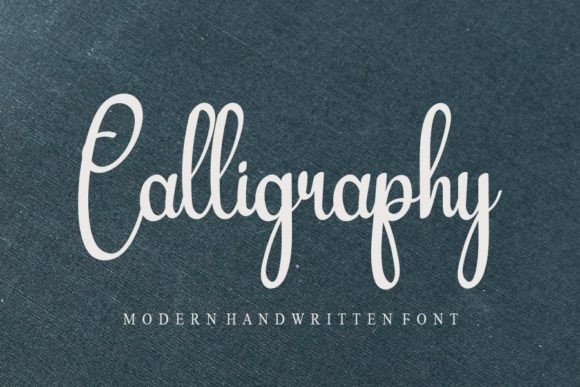
The Beauty of Calligraphy Font: Elevate Your Designs with Elegance
I’ll never forget the time I was working on a wedding invitation project, and my client asked for a font that exuded elegance and sophistication. I scoured the internet, tried countless fonts, but nothing seemed quite right. That was until I stumbled upon Calligraphy Font. It was love at first sight! ✨ With its classy calligraphic influences and contemporary feel, it instantly became my go-to choice. In this article, I’ll share my experience with Calligraphy Font, its features, and how to make the most of it in your designs.
An Honest Review of Calligraphy Font
• ✨ Beautifully crafted letters with a friendly, handwritten feel
• ✅ Maintains classy calligraphic influences while feeling contemporary and fresh
• 💫 Perfect for a wide range of creative projects, from wedding invitations to branding and packaging
• 👍 Highly legible, even at smaller font sizes
While Calligraphy Font is an excellent choice, there are a few things to keep in mind: ⚠️
• 🤔 Some users may find the font a bit too ornate for very casual or playful projects
• ⚠️ Limited availability of certain characters or glyphs, but this can be addressed with OpenType features
The Story Behind Calligraphy Font
Calligraphy Font was designed with the goal of creating a beautiful, yet approachable handwritten font. The designer, inspired by traditional calligraphy, aimed to craft a font that would feel both elegant and contemporary. With its unique blend of classic and modern elements, Calligraphy Font has become a favorite among designers and crafters.
Font Name Calligraphy Font
Author K_IN Studio
What is Calligraphy Font? Calligraphy Font is a friendly handwritten font, carefully designed to become a true favorite. It maintains its classy calligraphic influences while feeling contemporary and fresh.
Does Calligraphy Font support OpenType features? Yes, Calligraphy Font supports OpenType features, including stylistic alternates and glyphs.